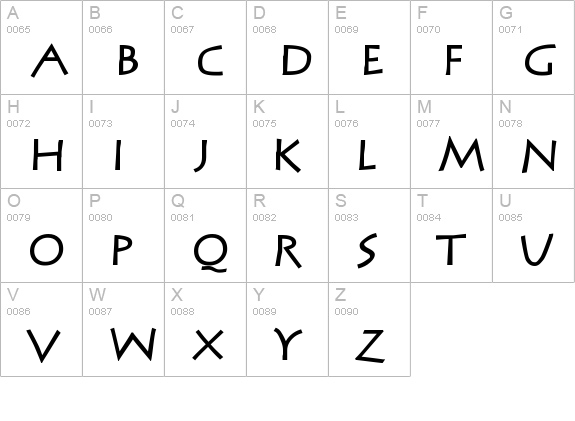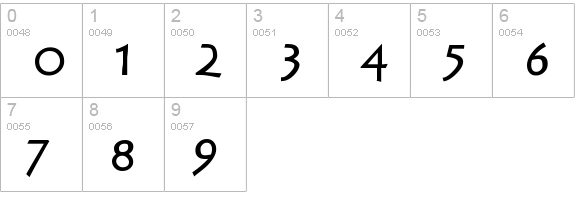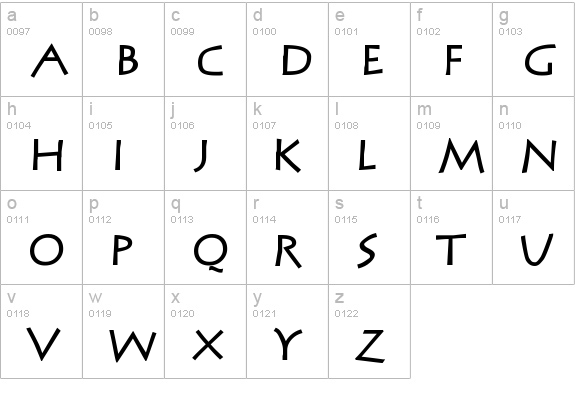
MCapitals font is a modern and stylish typeface that exudes sophistication and elegance. With its clean lines and bold lettering, this font is perfect for creating eye-catching designs and making a statement. Whether you are designing a logo, poster, or website, MCapitals font is sure to elevate your project to the next level. What's even better is that MCapitals font is completely free to download at FontsMarket.com. This means you can access this stunning font without any cost, making it a great choice for designers on a budget. Don't miss out on the opportunity to enhance your designs with MCapitals font today!